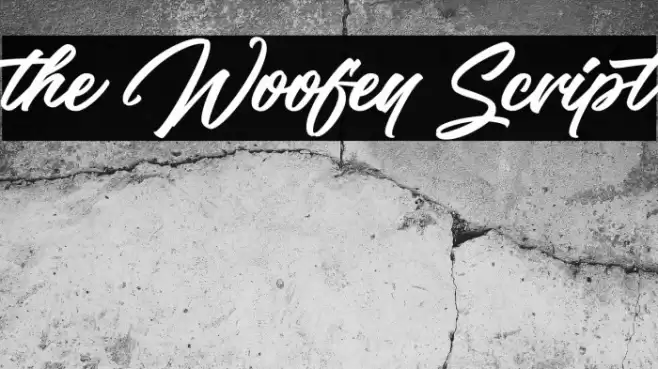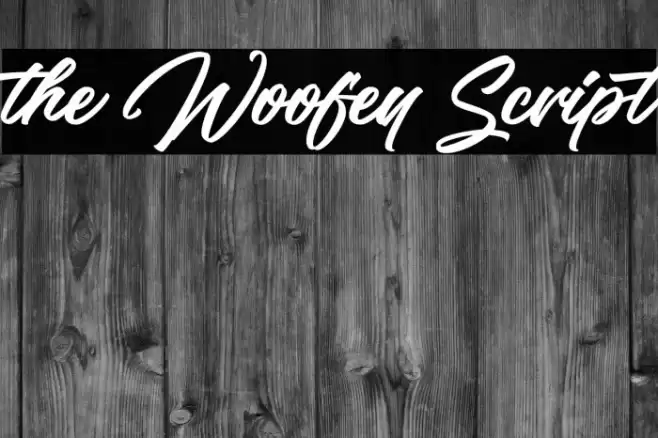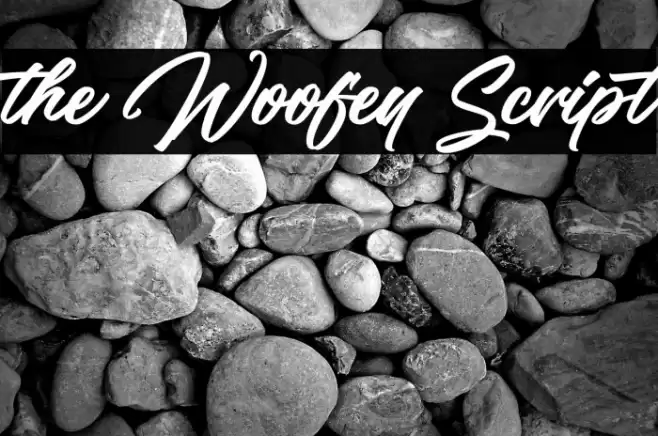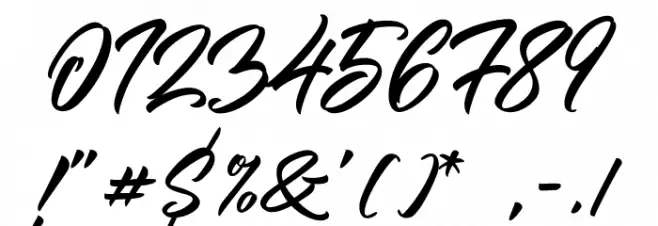
the Woofey Script Font
the Woofey Script Description
This script font exudes a lively and dynamic feel, characterized by its flowing, cursive style. The letters are interconnected, creating a seamless and elegant appearance. The strokes are bold and confident, with a slight slant that adds to the font's energetic personality. The uppercase letters are ornate and expressive, while the lowercase letters maintain a consistent rhythm and flow. Numbers and special characters are designed with the same attention to detail, ensuring a cohesive look across all elements. This font is perfect for projects that require a touch of sophistication and flair.
A lively and dynamic script font with bold, flowing strokes and elegant connections from Uncategorized fonts.
- Proposed Projects: Ideal for wedding invitations, branding, logo design, and elegant packaging.
- Use Case: Logos, Invitations, Branding